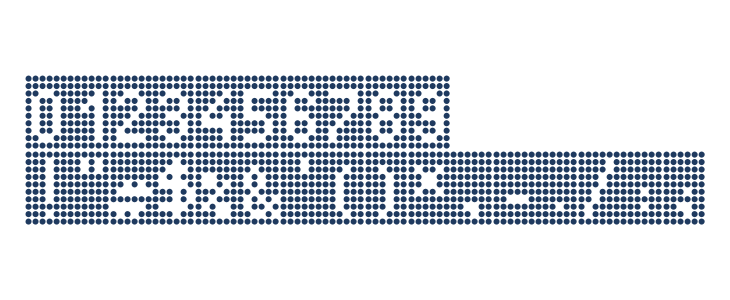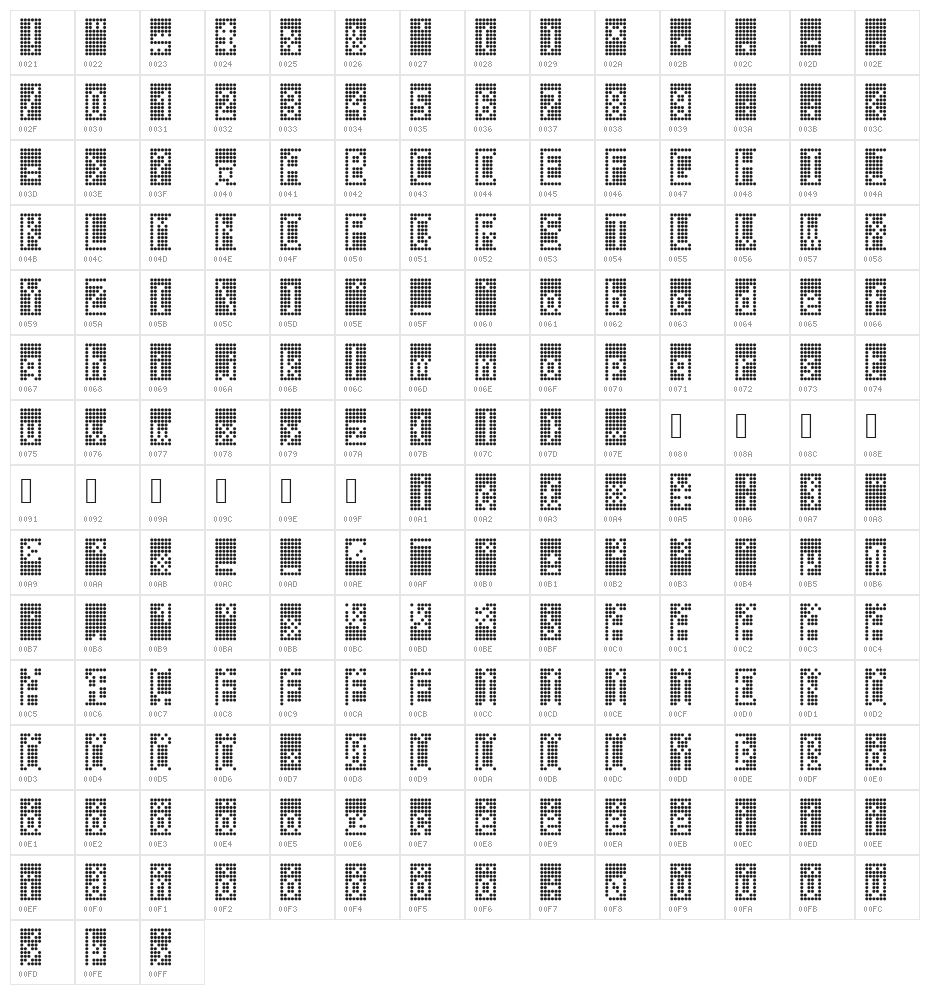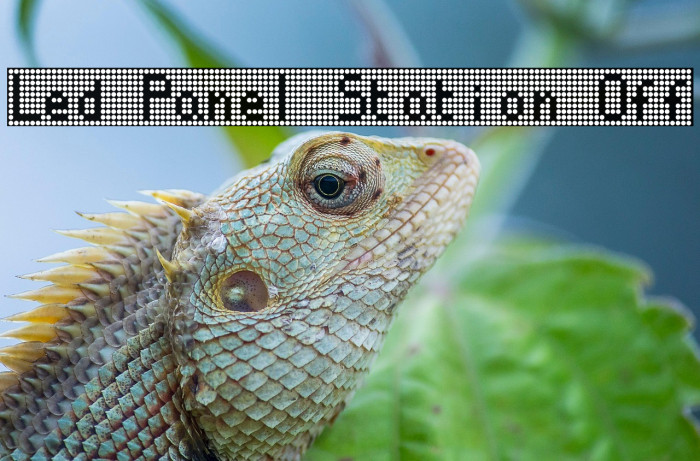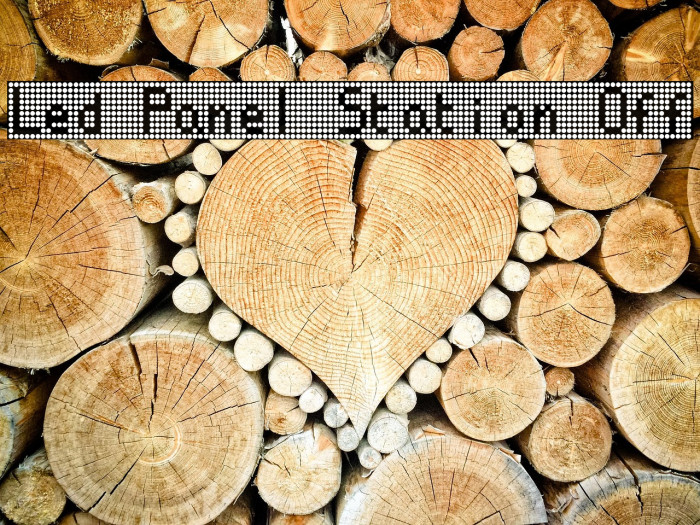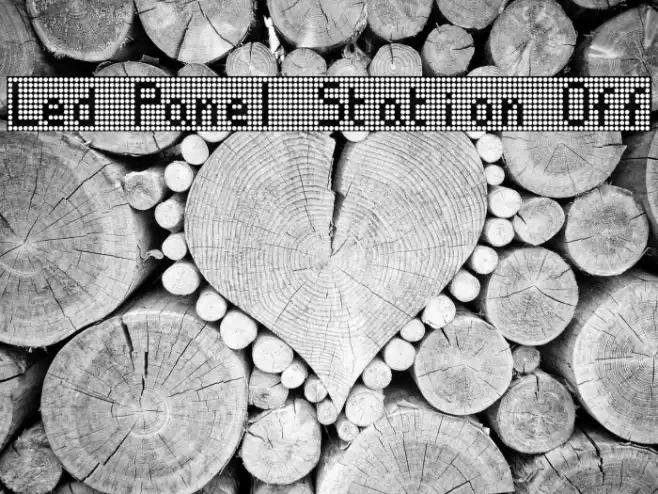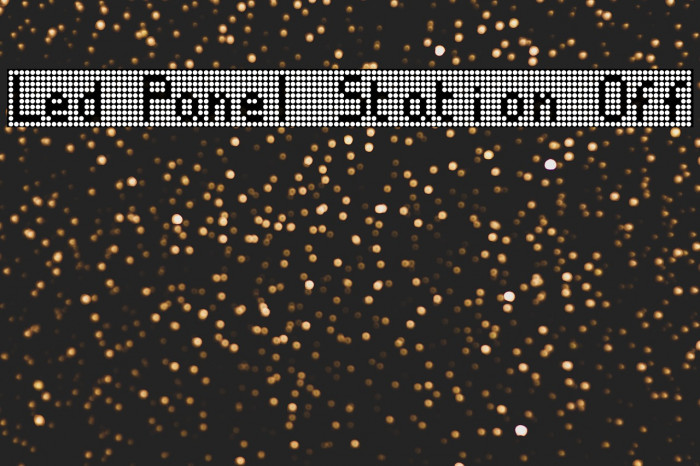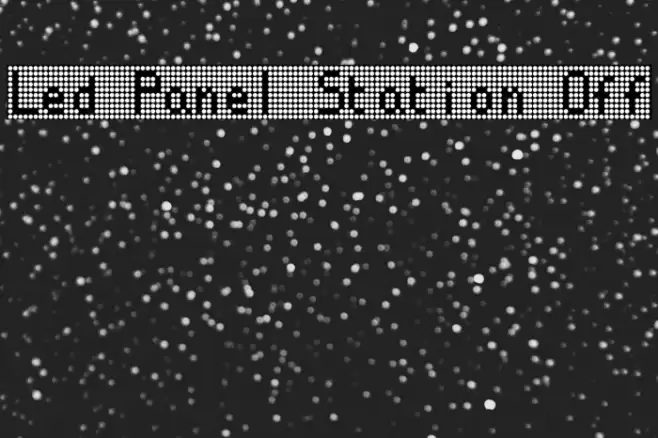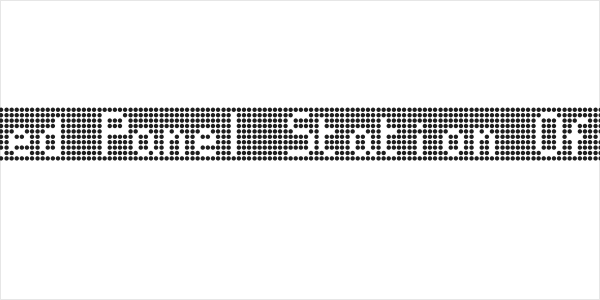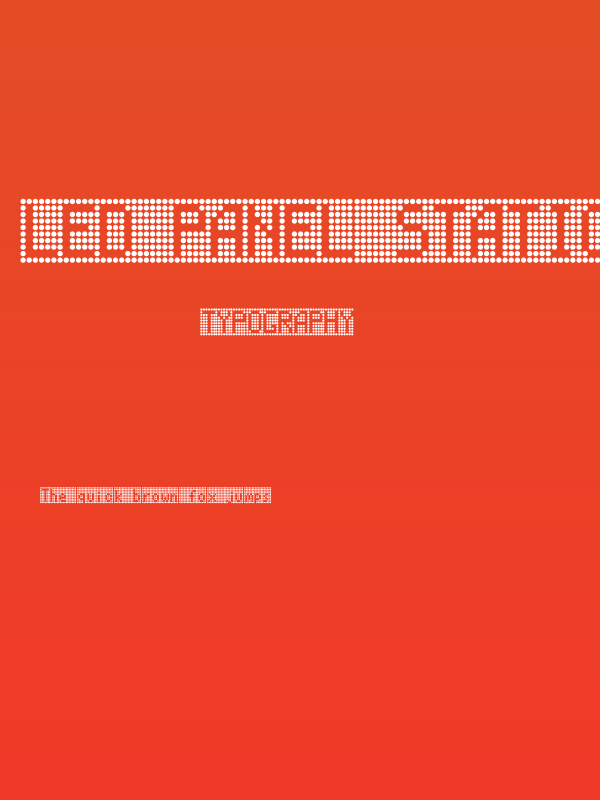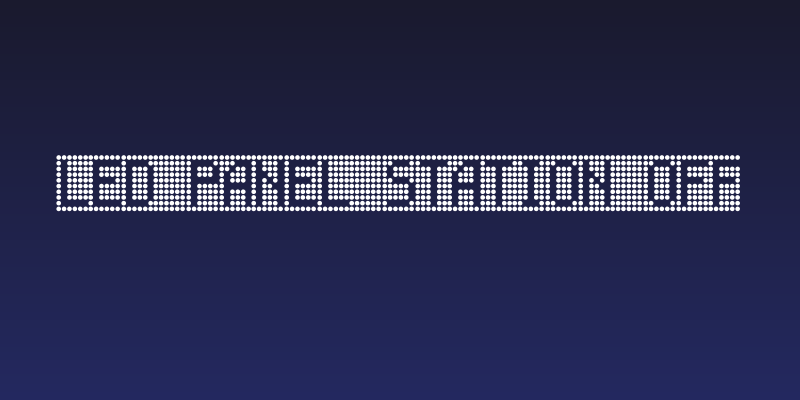
Led Panel Station Off Font
Led Panel Station Off Description
This font is a unique and modern design that mimics the appearance of LED displays. Each character is composed of a grid of dots, creating a digital and futuristic look. The characters are evenly spaced and maintain a consistent height, giving a uniform appearance across all letters and numbers. The style is reminiscent of electronic displays, making it ideal for projects that require a technological or digital theme. The font is highly legible, even at smaller sizes, due to the clear and distinct dot pattern that forms each character.
| Use Case | Headlines, Logos, Digital displays |
| Proposed Projects | Ideal for digital displays, tech-themed posters, electronic device interfaces, and futuristic branding. |